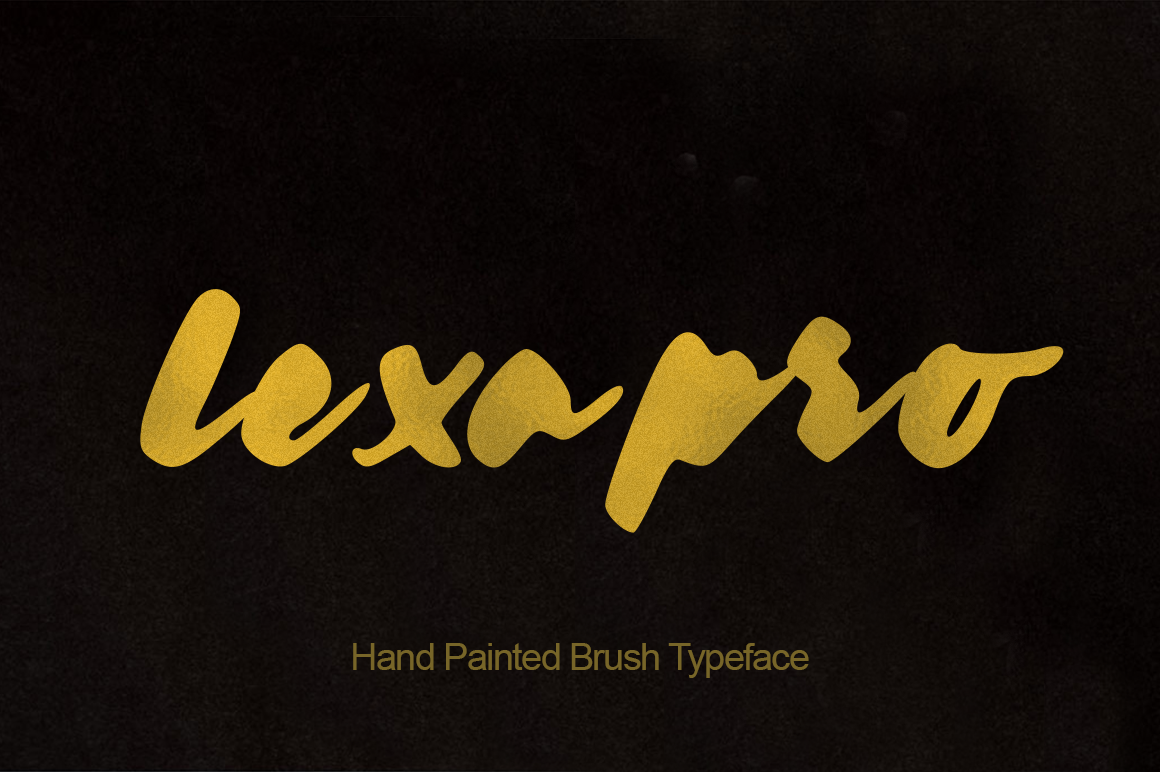
Lexapro Brush Font
Introducing Lexapro, a gorgeous handwritten script. Perfect for any graphic and logo designs, wedding and birthday invitations. The font ideal for your brutal logo designs, posters, social media posts, book covers & more.
| Classification: | Brush Fonts, Script Fonts |